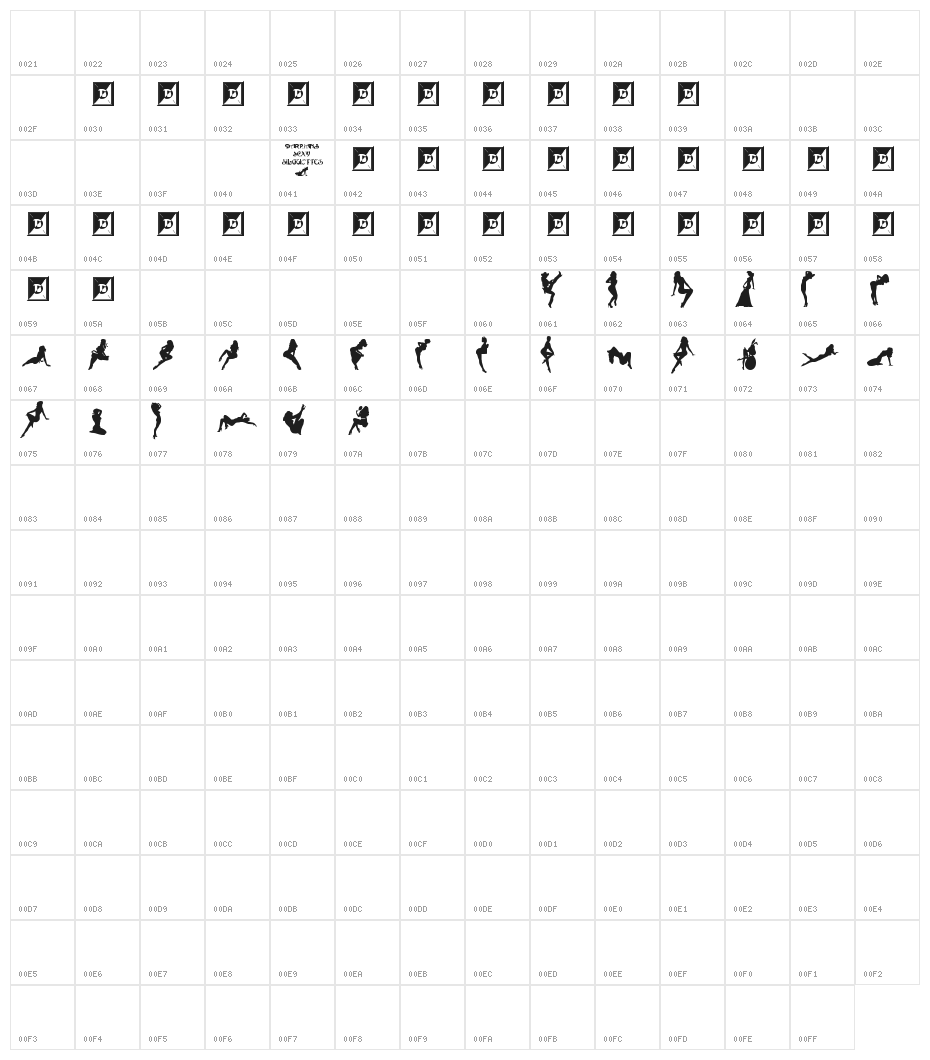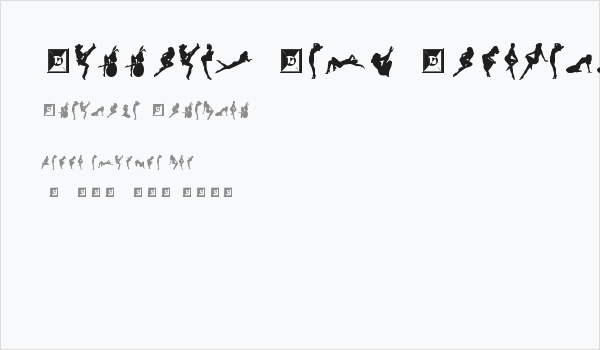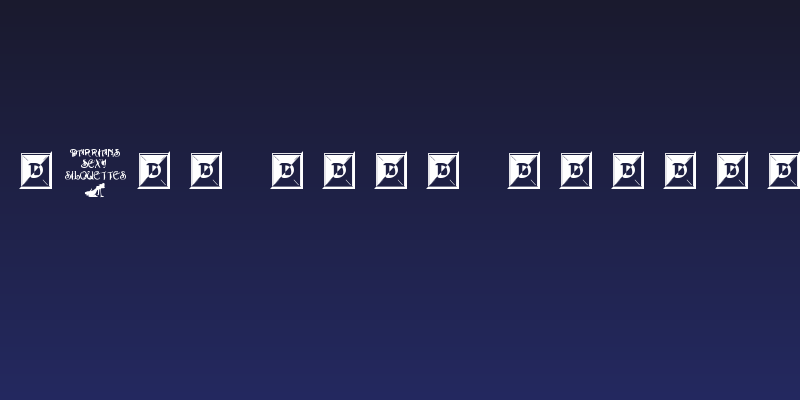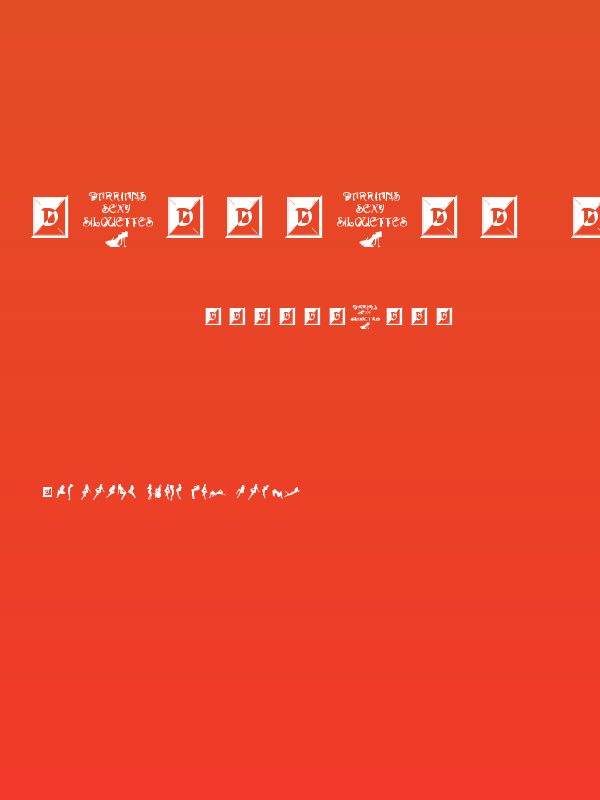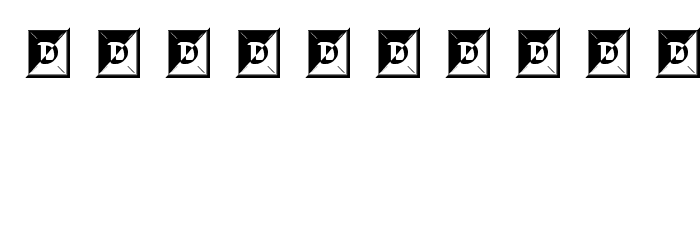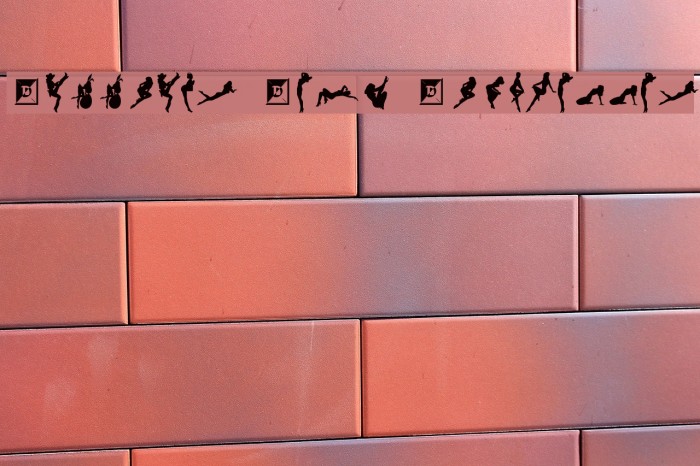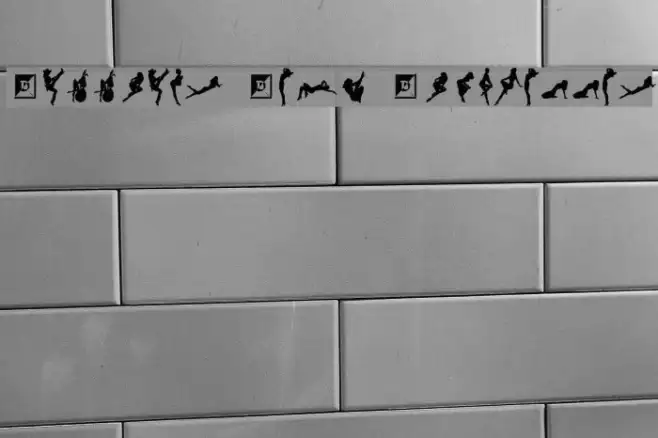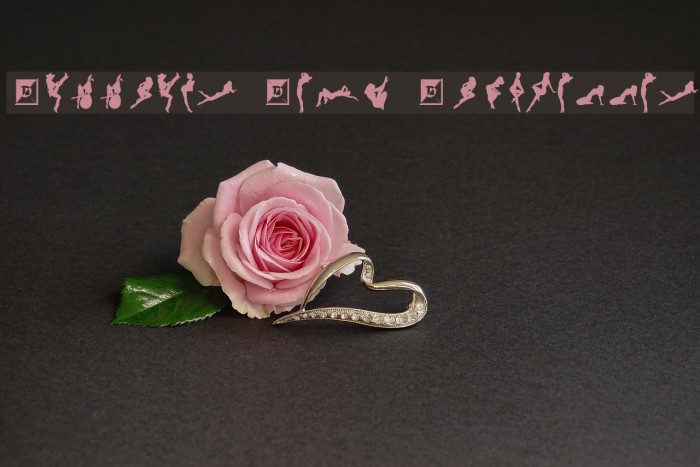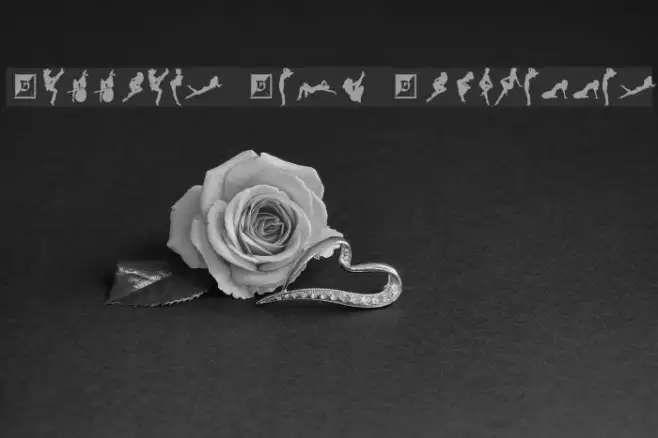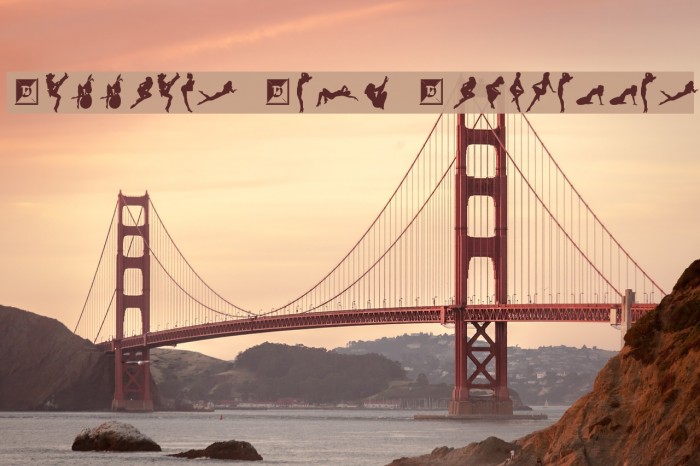
Darrians Sexy Silouettes Font
Darrians Sexy Silouettes Description
A decorative display font featuring black silhouette illustrations of women in various poses, combined with a geometric emblem for other characters. The style is bold and graphic, focusing on visual impact rather than traditional letterforms.
| Overall Style | Decorative, Novelty, Bold |
| Use Case | Logos, Posters, Themed event graphics, Decorative headings |
| Proposed Projects | Posters, party flyers, adult-themed event branding, novelty merchandise, graphic design projects requiring bold visual elements. |